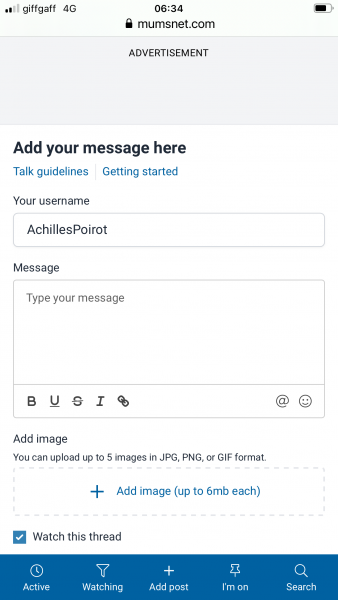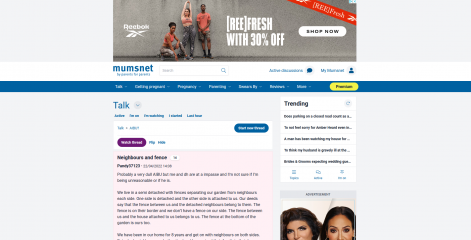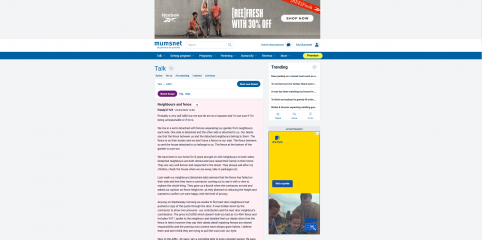
Font size still too big for average reader
I understand if you have poor eyesight, dyslexia etc but the average reader doesn't and this is hindering our ability to read threads as quick as we used to. I'm not being unreasonable, I'm being blunt.
For me it’s definitely smaller. iPhone. Safari. That’s not large (see attached)
Yeah surely the font size depends on your own browser settings. It’s a perfectly normal size for me.
My browser settings haven't changed.
You can amend your settings. The font is fine for me.
I think that the font is smaller and it’s also clearly different (iPhone).
I struggle with this new size and shape, haven’t got chance to investigate how to change it yet but clearly if you can increase it you can also decrease it.
Tbh mine hasn't changed, maybe you need to tweak some settings.
Mine has changed I'm sure. First picture is what it used to be like (I know it's taken today, but the thread content was like this) second picture what thread content is like.
It’s loads smaller on mine
The pictures are also fuzzy @mnhq
And when you reduce the font size, now everything shrinks, leaving even more white space.
Landscape mode it's smaller but readable. With annoying white gaps down the sides.
Portrait is larger and no wasted space
It's horrible, I've stopped coming on so much as it hurts my eyes so much
I could adjust my browser settings on my phone but then everything else would be smaller including the tiny numbers to move on to the next page. It's only gone up by one or two points but it is bigger. This is on the mobile site.
And typing a message, the font is smaller than once it's posted.
I'm in an iPhone and it's definitely smaller
And the app has small font too.
On an iPhone with font at 100% as always and it seems bigger but it just may be more spaced out. It different and not in a good way. There’s definitely less content in my screen and it takes more scrolling
I'm on an Anroid phone using the browser version and the font size is larger and there are more gaps.
It is annoying because of the increased scrolling and as I have a touch of RSI it makes me use it less.
The font size is bigger for me since the relaunch on an Android phone and tablet, and as an older MNer I like it.
I think maybe the gaps between let’s is bigger? Or the font is wider?
something is making it much harder to read.
I'm using a Galaxy S10 and not having any of these issues.
I'm not seeing an issue with the font size at all. It doesn't look any bigger than it used to.
I feel like they've lowered the reading age essentially.
It's AWFUL 😡😡😡😡
What are you viewing it on?
OP mine is the same. And I don't know why app title threads are bold.